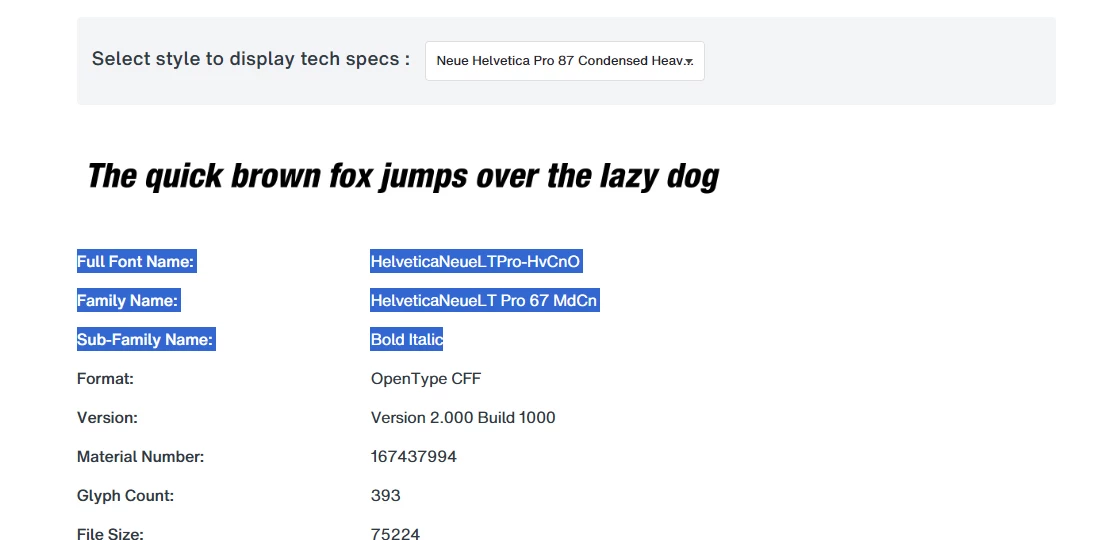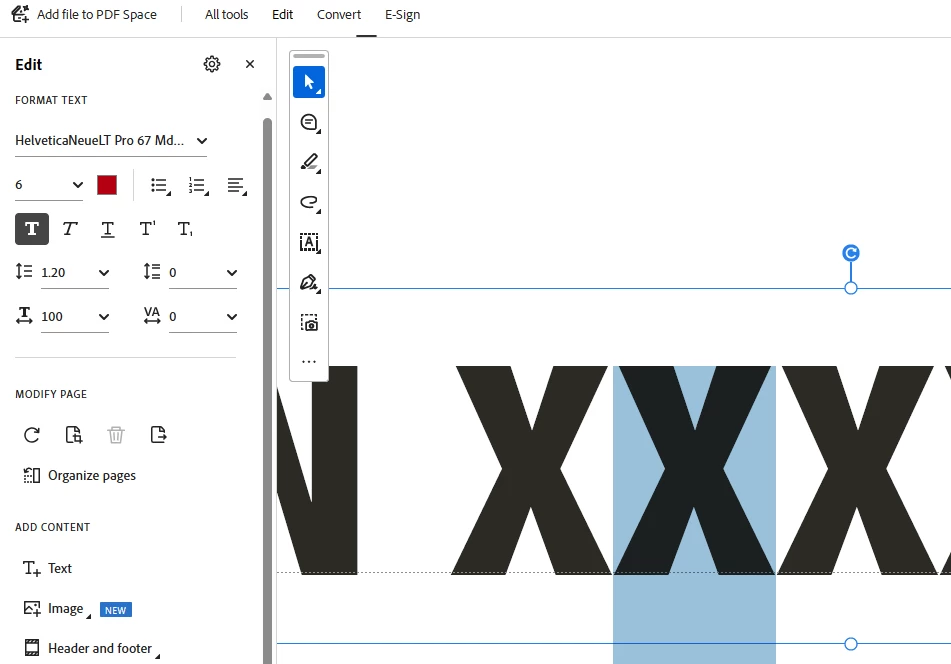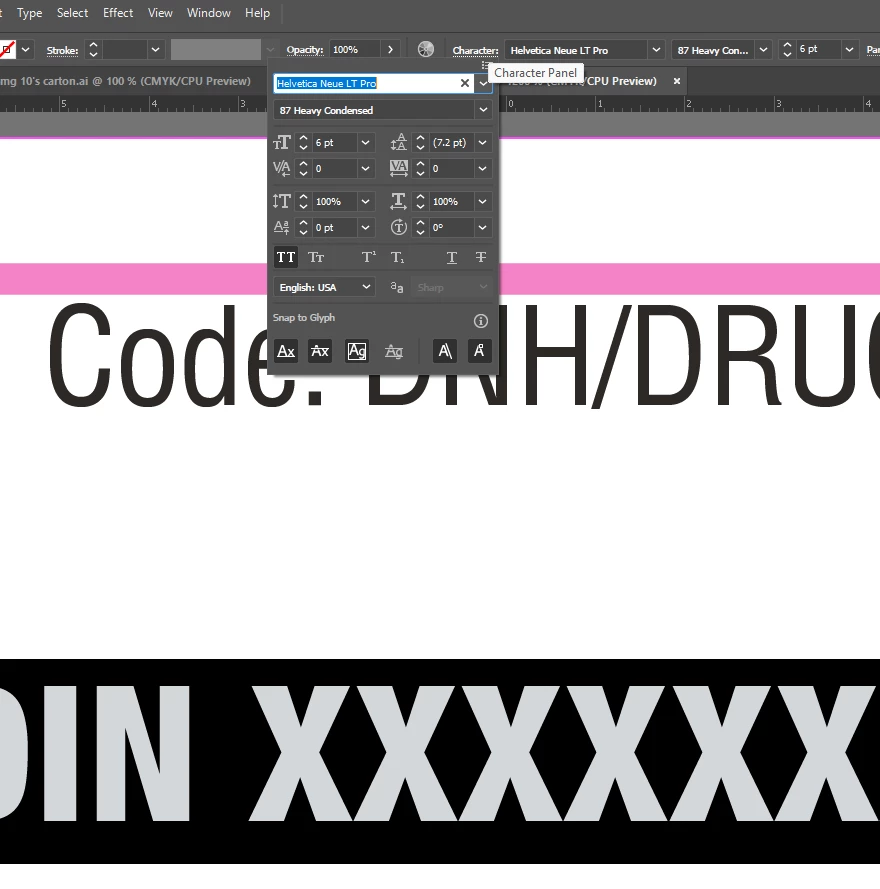
Helvetica Neue LT Pro fonts are not available on the Adobe Fonts
We just found 14 fonts for Helvetica Neue LT Pro on Adobe Fonts. Compared with the font list provided by Monotype, total 50 fonts, there are still many fonts not available on Adobe Fonts. We would like to know when these fonts will be ready on Adobe Fonts.
Is this the reason why my Illustrator is showing Helvetica Neue LT Pro Heavy vs Medium on the PDF version?
If you're placing or opening PDF files in Adobe apps like InDesign or Illustrator the apps will try to find the nearest equivalent to any missing fonts. The Helvetica Neue package at Adobe Fonts is a limited selection of 14 fonts from the Helvetica Neue type family, which has around 50 fonts.
It would be nice if the complete Helvetica Neue type family was available thru Adobe Fonts, but Monotype and Adobe would have to update their agreement to make that possible. Several other type families from Monotype hosted at Adobe Fonts have the same problem. Some other type foundries also have limited versions of type families available at Adobe Fonts. However, this is more of an exception than a rule. Most type families at Adobe Fonts are complete.
This is correct.
After a discussion with Monotype. they have provided info about the Font spec.
It show that the Helvetica Neue LT Pro Heavy is considered Medium Bold. ( Print screen attached. )
I agree, Adobe should be in line with Monotype.
Je pensais qu'il me manquait dans ma bibliothèque de police l'Helvetica Neue LT Pro EXTRA BLACK et EXTRA BLACK Oblique, mais en faisant la recherche, je m'aperçois qu'elle n'existe pas !
Pouvez-vous me le confirmer ?
Helvetica Neue only has Extra Black styles in condensed widths. The type family does not have Extra Black styles in the regular and extended width range. The Helvetica Now type family has some of that extra heavy weight capability in the regular and condensed ranges. The variable version of Helvetica Now covers that really well. Unfortunately Helvetica Now doesn't do anything with extended styles of Helvetica. I'm doubting Monotype will fill that gap. The static versions of Helvetica Now were released in 2019 and the variable version was released a couple years later. It's 2025 now and no extended styles of Helvetica Now have been released.